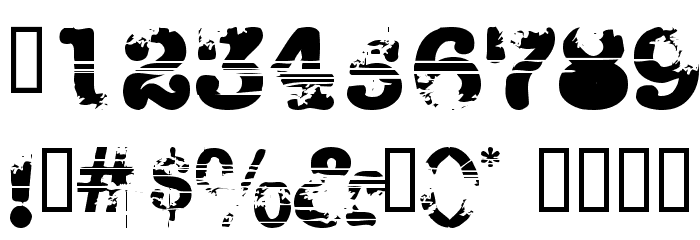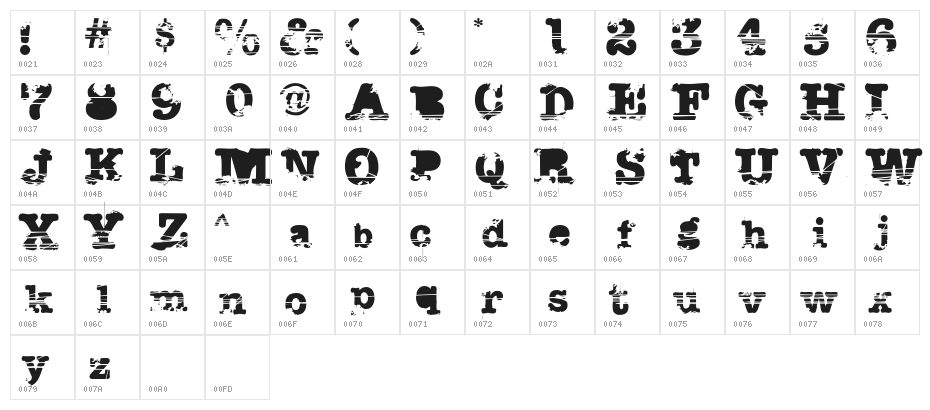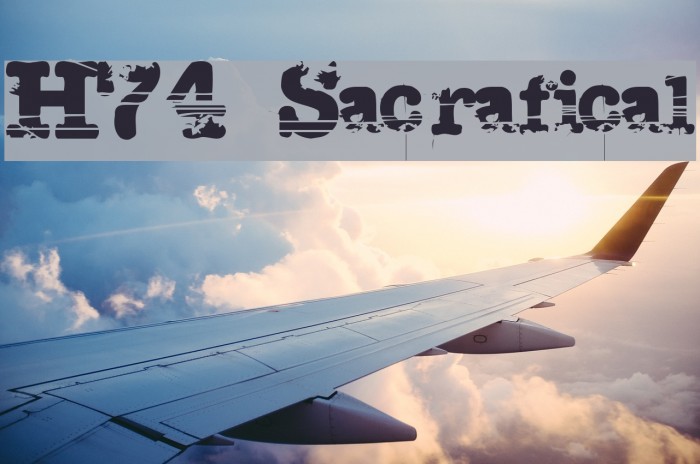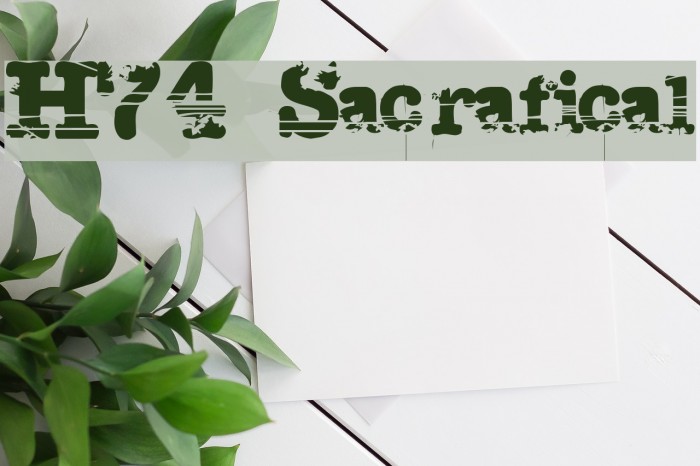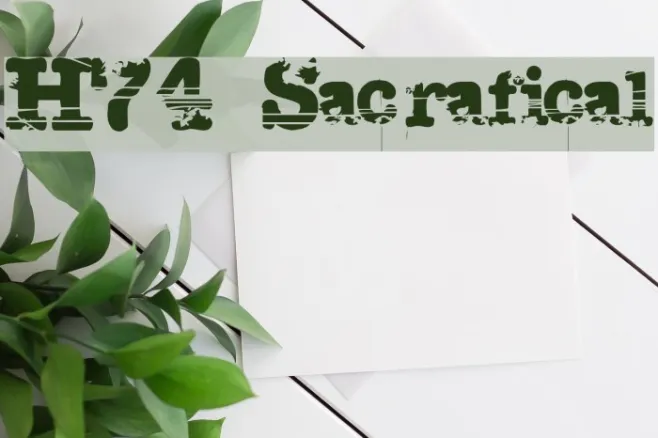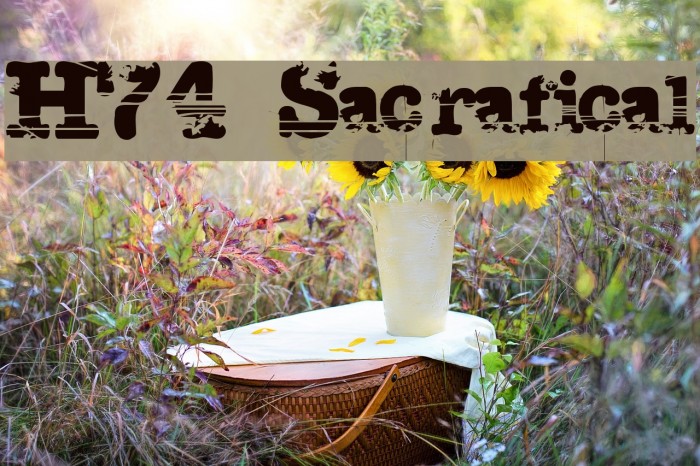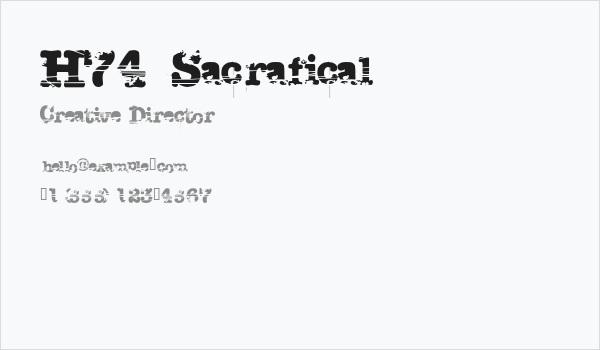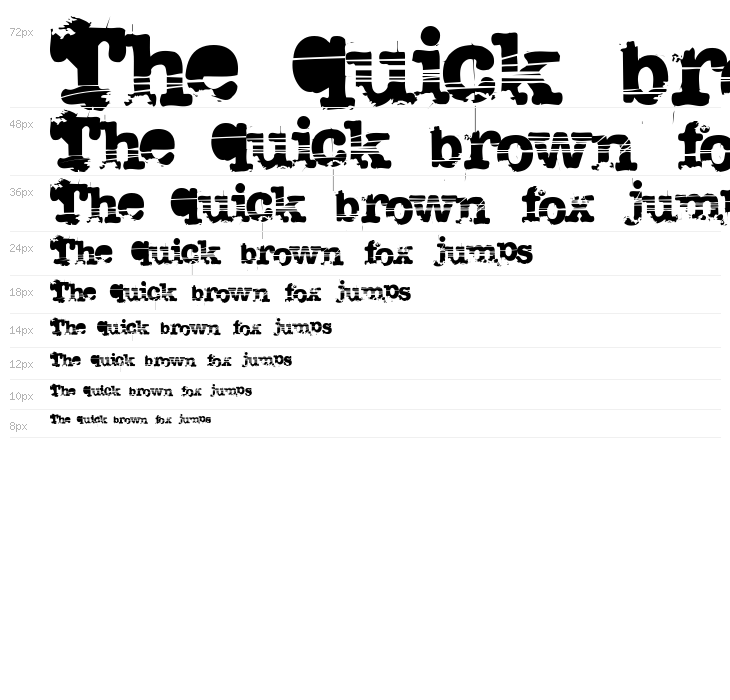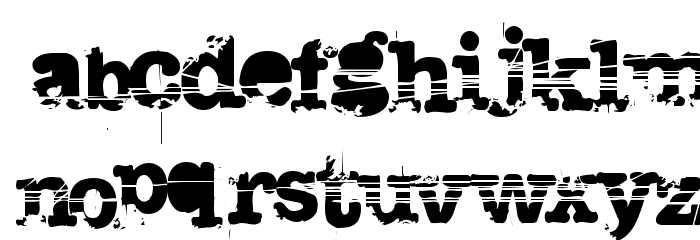
H74 Sacrafical Font
H74 Sacrafical Description
This font exhibits a bold and distressed style, characterized by its rough, grunge-like texture. The letters appear as if they have been eroded or weathered, giving them a unique, edgy appearance. The uppercase and lowercase letters maintain a consistent width, with jagged edges and irregularities that add to the font's rugged charm. The numbers and special characters follow the same distressed aesthetic, ensuring a cohesive look across all glyphs. This font is ideal for projects that require a gritty, urban feel, such as music album covers, posters, or edgy branding materials.
| Proposed Projects | Album covers, posters, edgy branding, urban-themed designs. |